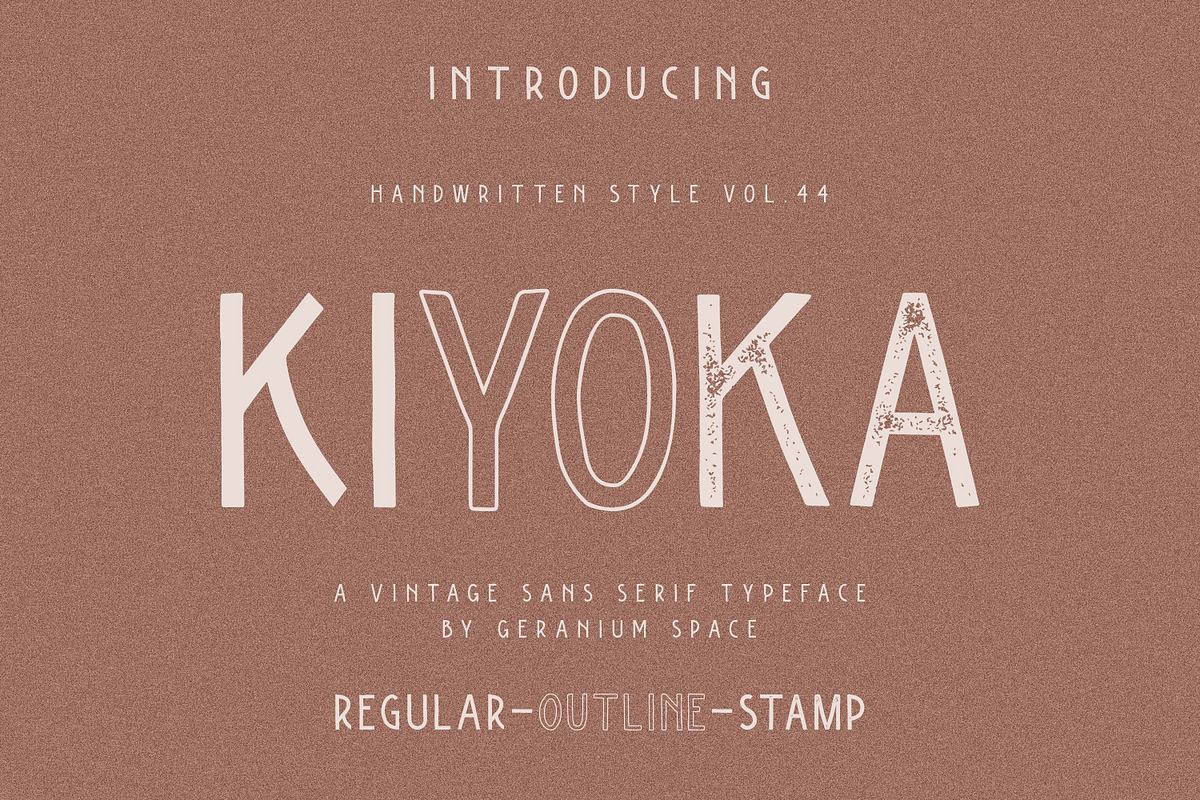
Kiyoka - A Vintage Sans Typeface Free Download
Timeless, sleek, and full of character, Kiyoka - A Vintage Sans Typeface Free Download is a versatile typeface inspired by vintage design with a modern twist. Perfect for branding, logos, editorial design, packaging, and social media graphics, Kiyoka adds a refined yet nostalgic feel to your typography.
With its clean, geometric letterforms and elegant simplicity, Kiyoka is ideal for both modern and retro-themed projects, providing a sense of sophistication and clarity. Whether you're designing for a luxury brand or working on a retro-inspired marketing campaign, this font ensures your text stands out with style and readability.